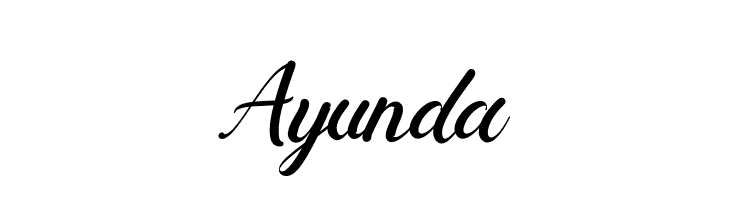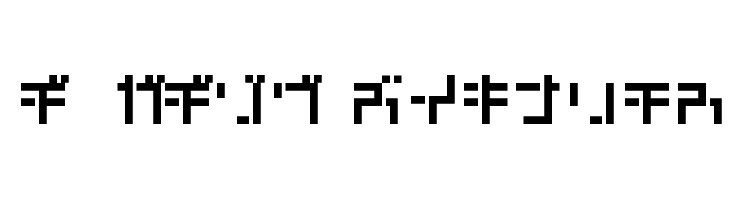
A lively, handwritten-style font with bold, expressive strokes.
A bold, semi-italic font with sharp angles and a dynamic, modern style.
A bold, geometric font with sharp angles and a modern look.
An elegant and flowing script font with ornate uppercase letters and graceful lowercase forms.
A bold, stencil-like font with a fragmented, shadowy effect.
A bold serif font with thick strokes and sharp serifs, offering a modern twist on classic design.
A clean, elegant slab serif font with a modern, italic style.
A charming and elegant handwritten font with fluid, connected letterforms.
A sleek, futuristic italic font with angular, geometric characters.
Playful handwritten decorative font.
设计师偏爱 Martina, Yankee Clipper Semi-Italic, Amneziak, Bailey and Shadows,因为其造型干净、适用范围广—— 从品牌识别到落地页、海报都能胜任。